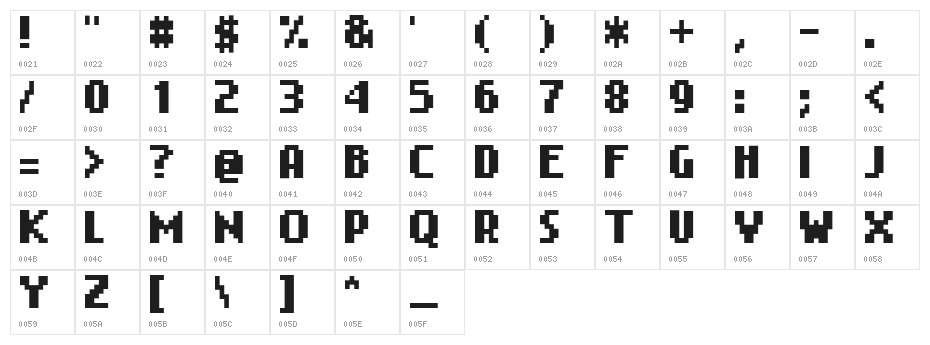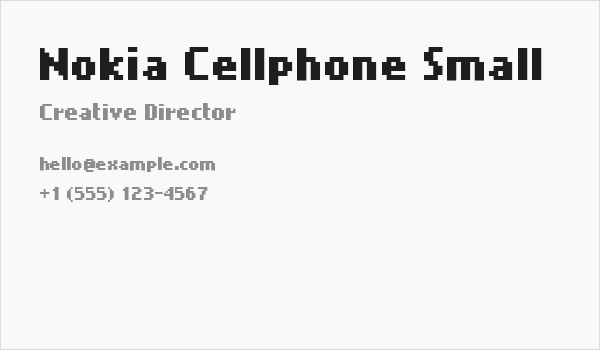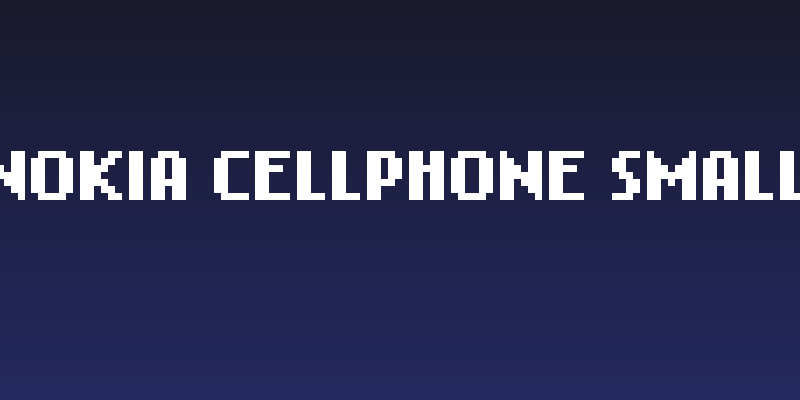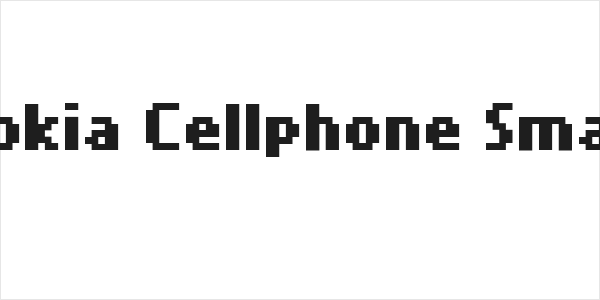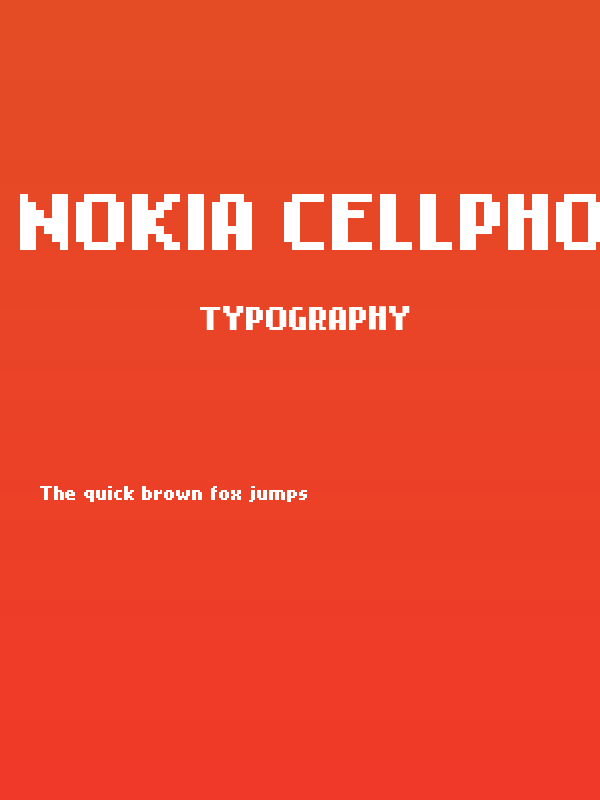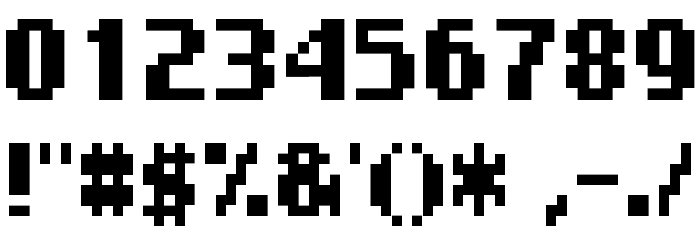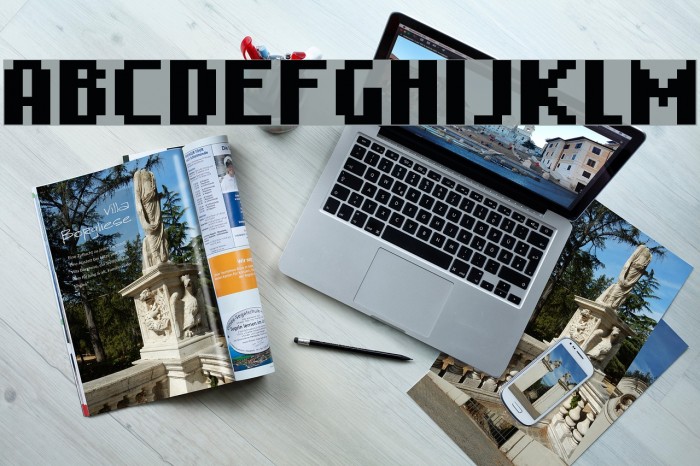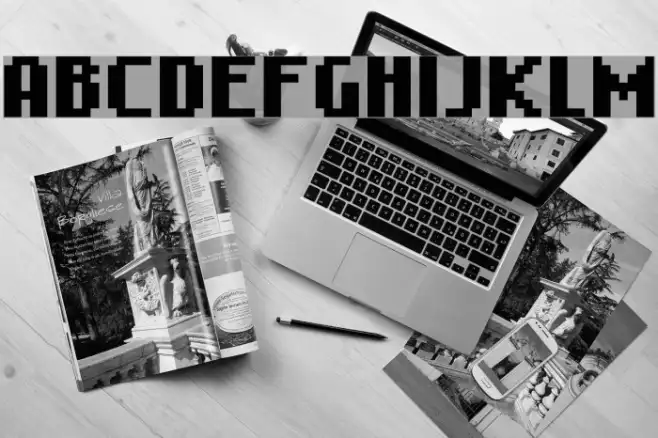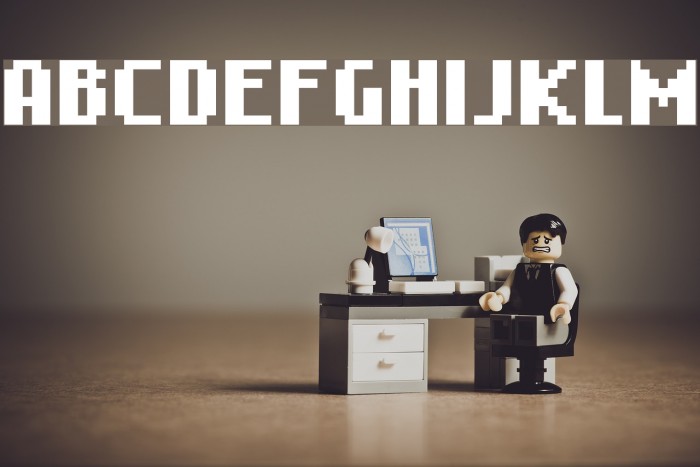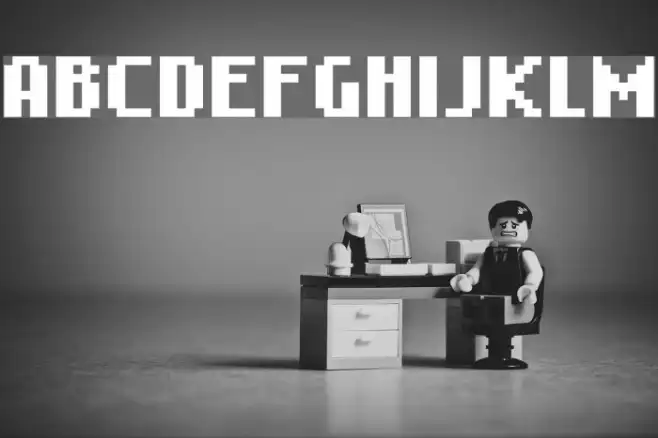
Nokia Cellphone Small Font
Nokia Cellphone Small Description
This font features a pixelated, blocky design reminiscent of early digital displays and retro gaming aesthetics. Each character is constructed with a grid-like precision, giving it a distinctly digital and vintage feel. The uppercase and lowercase letters maintain a consistent height and width, contributing to its monospaced appearance. The numbers and special characters follow the same stylistic approach, ensuring uniformity across all glyphs. This font is ideal for projects that aim to evoke nostalgia or require a digital, tech-inspired look.
| Use Case | Logos, Headlines, Digital displays |
| Proposed Projects | Ideal for retro video games, tech-themed designs, digital art projects, and nostalgic branding. |